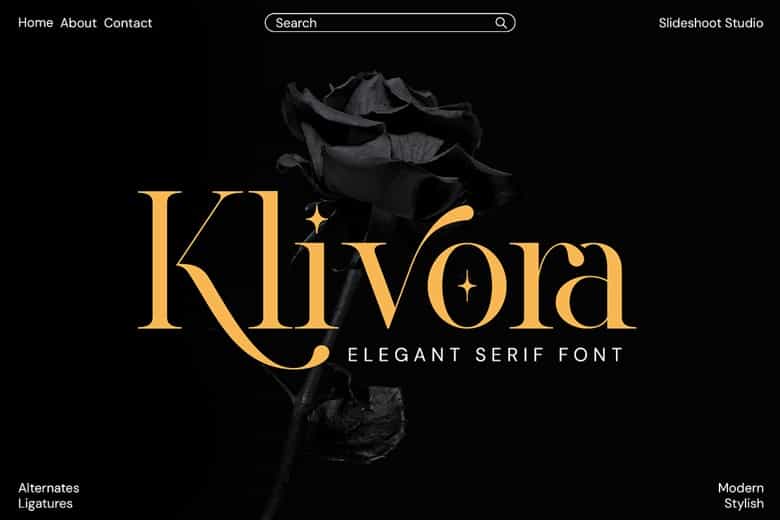
Klivora is a harmonious, tender, graceful and quite sophisticated serif font. He has a beautiful character. Perfect for use with invitation card designs, company logos, movie titles, business card designs, book titles, brand names and other designs. Its unique styling and binding make it a great font for any job you are working on.